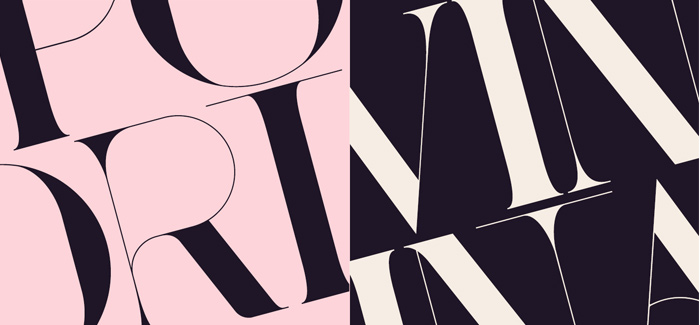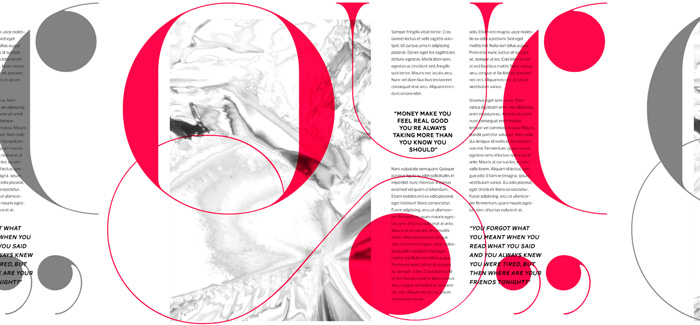
Port Vintage font
Port Vintage font family by João Oliveira (Onrepeat foundry) is a Serif premium calligraphy interpretation of the typography masterpieces in the Didone category such as Bodoni and Didot. The Port Vintage typeface is an upgraded version of the released in the 2013 original Port font family. It was completely redesigned with special attention paid to the soft transitions and curved connections between the stems and serifs of Port Vintage. The result is an exquisite and comprehensive typeface with softer edges, elegant looking characters with refined geometric swashes and countless alternates offering infinite possible combinations.
Port Vintage font family is OpenType programmed and includes hundreds of alternates, from swashes to titling alternates, ligatures and stylistic sets with each character having a thin version of itself, giving complete freedom to all your creative needs. It consists of 10 different styles: Port Vintage Regular, the base version featuring the whole base character set; Port Vintage Regular Decorated, offering richer forms and containing more ornamental and extravagant characters; Port Vintage Medium and Port Vintage Medium Decorated, designed for the occasions you need a bit more thickness and the decoration variants; Port Vintage Ornaments, containing a wide set of elements meant for the creation of fillets, vignettes and fleurons, resulting in an almost infinite number of possible combinations to embellish your designs and Port Vintage Words, a set of some of the most common words used in English, Spanish, French, German, Italian and Portuguese. All styles, except Port Vintage Ornaments and Port Vintage Words, include italic styles.